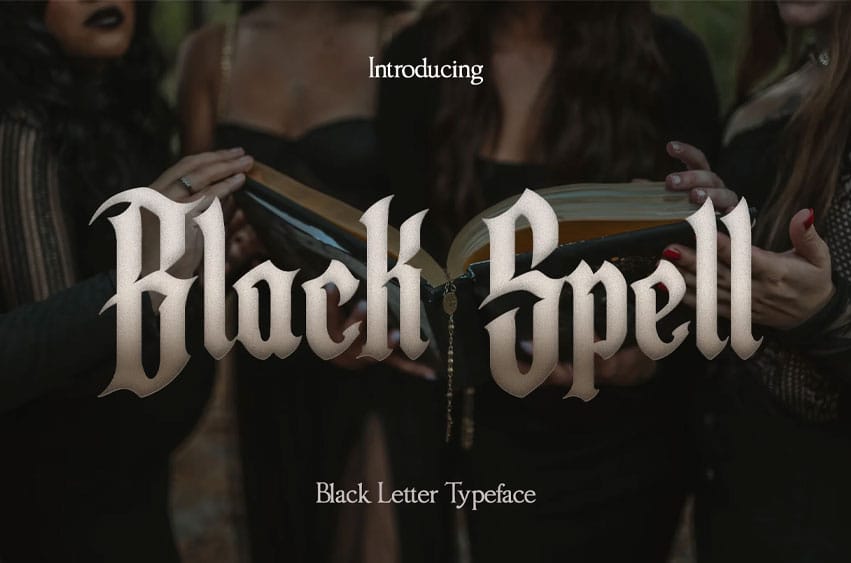
Black Spell Font Blackletter style typeface for your personal or business purpose.
Crafted with high attention to detail, it gives you the best design experience.